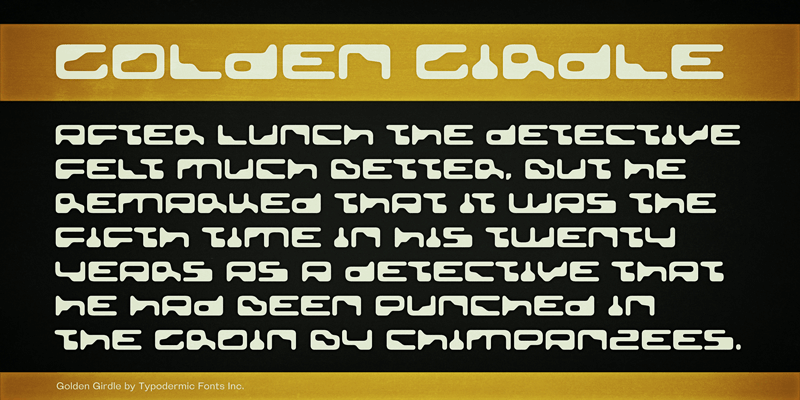
Golden Girdle, designed in 1997, is a wide, retro-futuristic display font inspired by magnetic ink fonts on the 1960’s. Golden Girdle has been updated with improved vertical metrics for cross-browser web performance. More languages are supported and accents have been redesigned. Spacing and kerning has been improved. More punctuation and math symbols have been added, as well as fractions and numeric ordinals. This font includes a license that allows free commercial use: sometimes referred to as a desktop license. This allows you to install the font on a computer and use it to create posters, web graphics, game graphics, t-shirts, videos, signs, logos and more. Read the license agreement for details. If you'd like to embed this font in an app, ebook, on the web or anything that's not covered by the desktop license agreement, visit the link below. You'll find distributors who offer different types of licenses or you can contact me for help. http://typodermicfonts.com/golden-girdle/ |